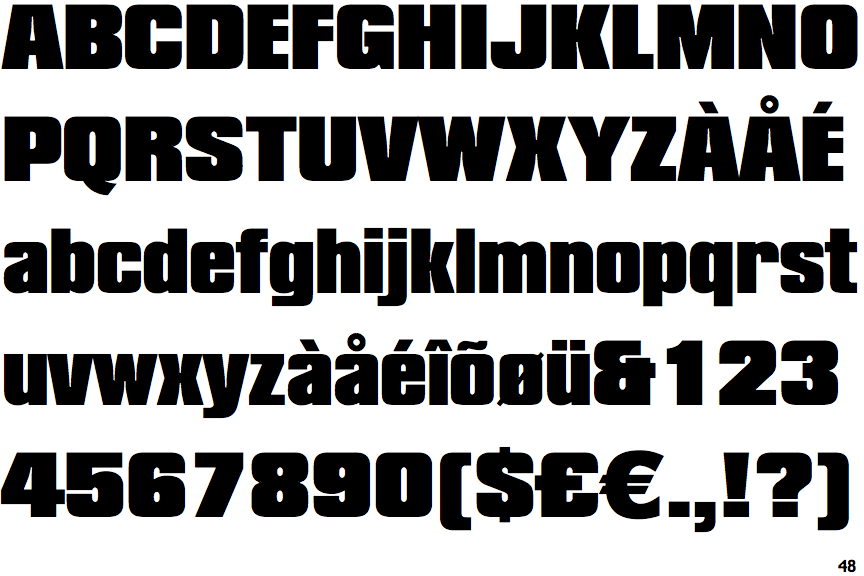
Compacta Black Font. Web download compacta black regular for free. Web compacta is the work of fred lambert and is reminiscent of the extremely narrow, sans serif stencilled fonts of the 1920s, then intended as titles or headlines for magazines and posters.